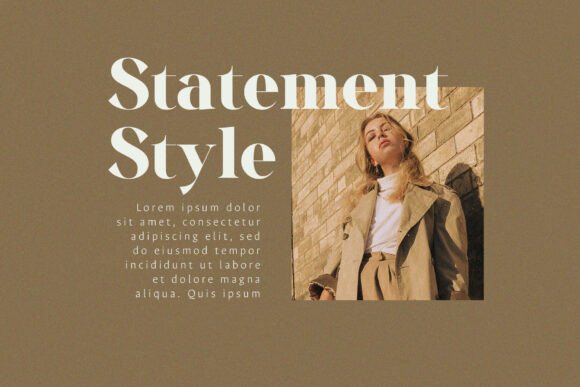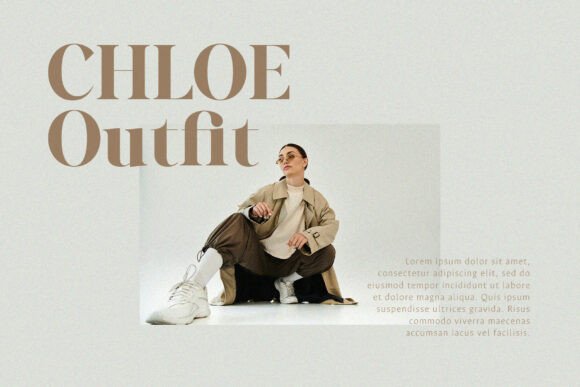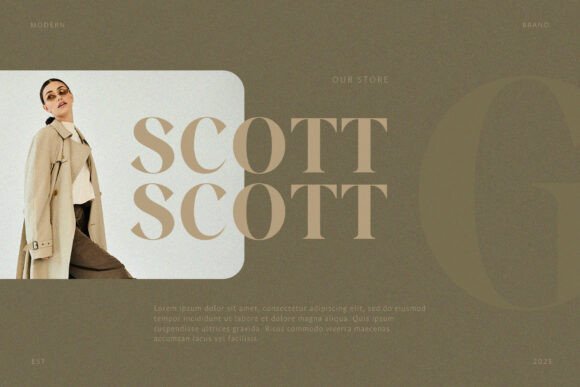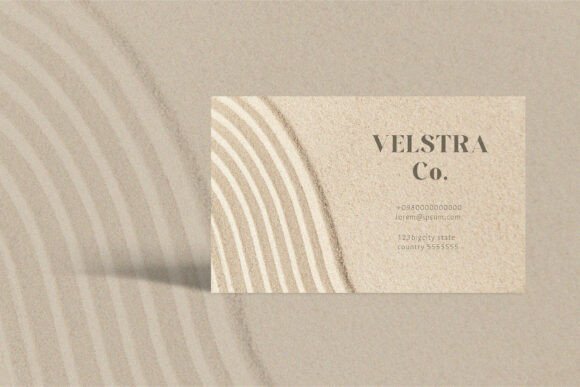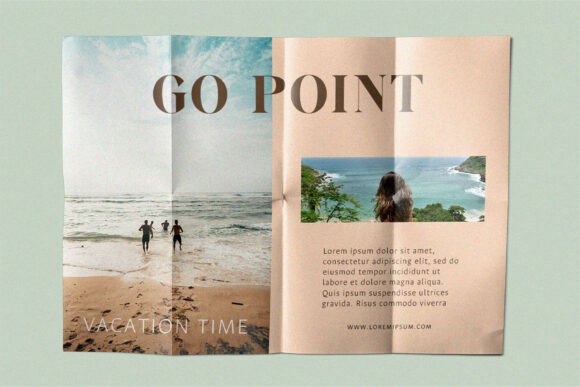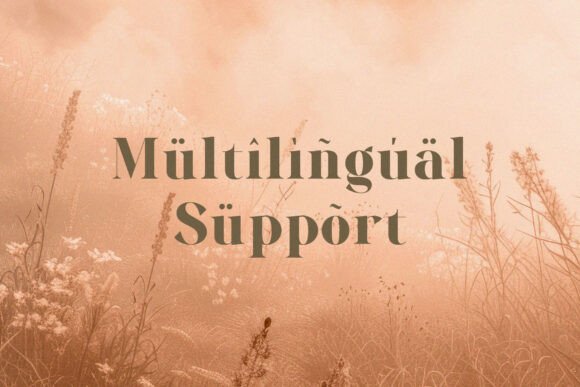
Introducing Ceflinty Font: Elevate Your Designs with Luxury and Elegance
In the world of typography, a font can make or break the aesthetic of a project. For designers and crafters seeking to add a touch of sophistication and warmth to their visual storytelling, Ceflinty Font is an exceptional choice. This luxury serif font is meticulously designed to bring elegance and refinement to a wide range of applications, from beauty branding and editorial layouts to invitations and product packaging.
The Characteristics of Ceflinty Font
Ceflinty Font boasts a distinctive set of characteristics that set it apart from other serif fonts. Its bold contrast, sleek lines, and soft curves work in harmony to create a balanced and visually appealing aesthetic. This harmonious blend of features makes Ceflinty both sophisticated and approachable, perfect for designers who aim to add a refined, artistic charm to their work.
Perfect for Beauty Branding
Beauty and cosmetics brands require a font that exudes luxury, elegance, and a deep understanding of the industry’s aesthetic. Ceflinty Font, with its high-end feel and classic serif lines, is an ideal choice for beauty branding. It adds a level of sophistication and glamour to logos, packaging, and marketing materials, helping brands stand out in a crowded market.
Elevate Editorial Layouts with Ceflinty
For editorial projects such as magazines, newspapers, and blogs, the right font can significantly enhance readability and visual appeal. Ceflinty Font, with its clear and elegant letterforms, is perfect for editorial layouts. It offers a refined look that engages readers and adds a touch of class to any publication.
Create Stunning Invitations and Packaging
Ceflinty Font is not just limited to digital and print media; it’s also an excellent choice for creating stunning invitations and product packaging. Its elegant and sophisticated appearance makes it ideal for wedding invitations, event flyers, and product labels. Adding Ceflinty to your designs ensures they convey a sense of luxury and exclusivity.
Why Choose Ceflinty Font?
- Elegance and Warmth: Ceflinty brings a unique blend of elegance and warmth to every project, making it versatile for various applications.
- Harmonic Balance: The font’s bold contrast, sleek lines, and soft curves create a harmonious balance that is both visually appealing and sophisticated.
- Versatility: Suitable for a wide range of projects including beauty branding, editorial layouts, invitations, and product packaging.
- Sophistication and Approachability: Ceflinty strikes the perfect balance between being sophisticated yet approachable, making it ideal for adding a refined, artistic charm to visual storytelling.
How to Use Ceflinty Font Effectively
To make the most of Ceflinty Font, consider the following tips:
- Pair with Complementary Fonts: For maximum impact, pair Ceflinty with sans-serif fonts for headings and use it for body text to create a harmonious contrast.
- Adjust Font Sizes: Play with different font sizes to emphasize headings and maintain readability in body text.
- Utilize Font Weights: Experiment with different weights of Ceflinty to add depth and hierarchy to your designs.
Ceflinty Font is a luxury serif font that offers designers and crafters a powerful tool to elevate their projects with elegance and warmth. Its versatility, sophisticated aesthetic, and harmonic balance make it an ideal choice for a variety of applications. Whether you’re working on beauty branding, editorial layouts, invitations, or product packaging, Ceflinty is sure to add a refined, artistic charm to your visual storytelling. Discover the potential of Ceflinty Font and take your designs to the next level of luxury and sophistication.